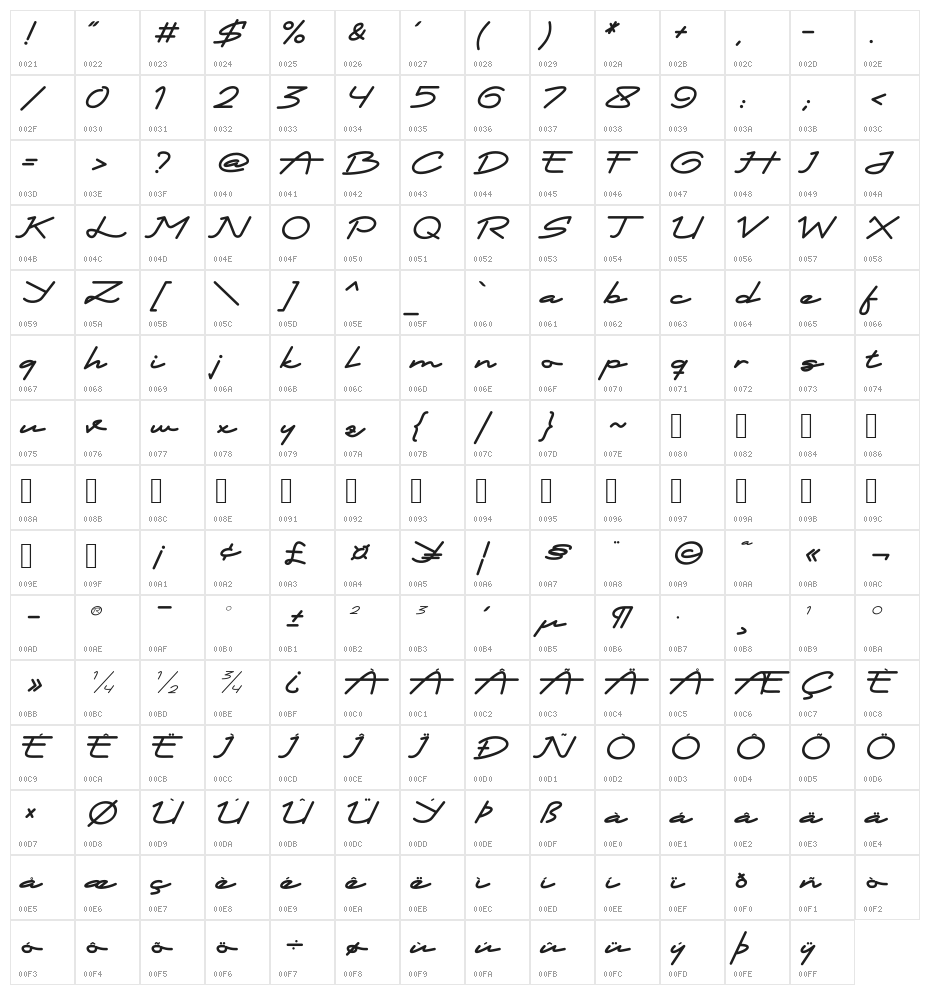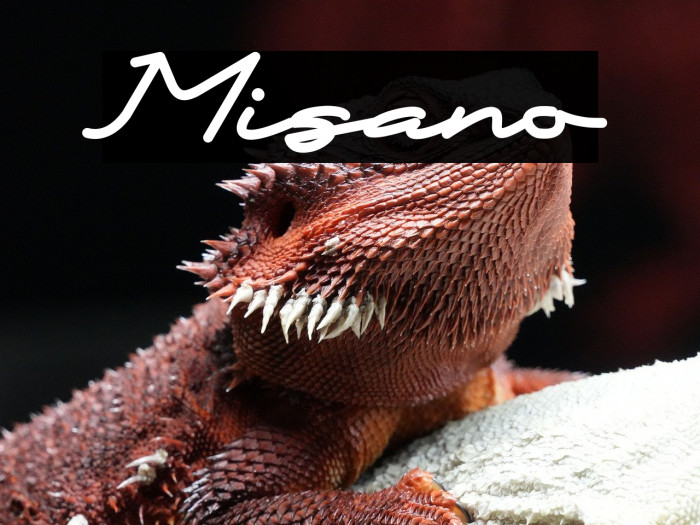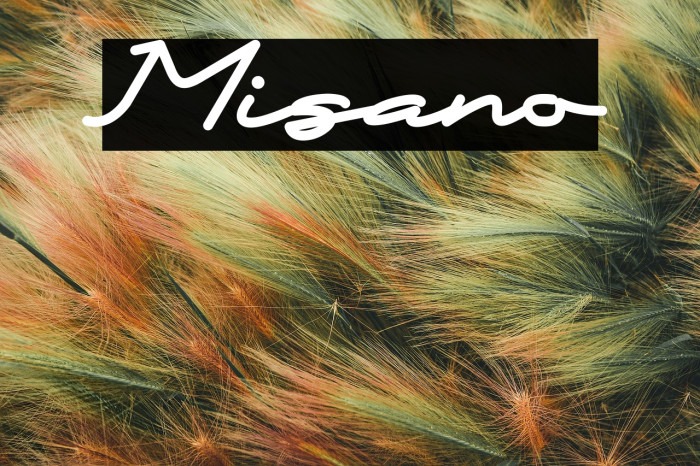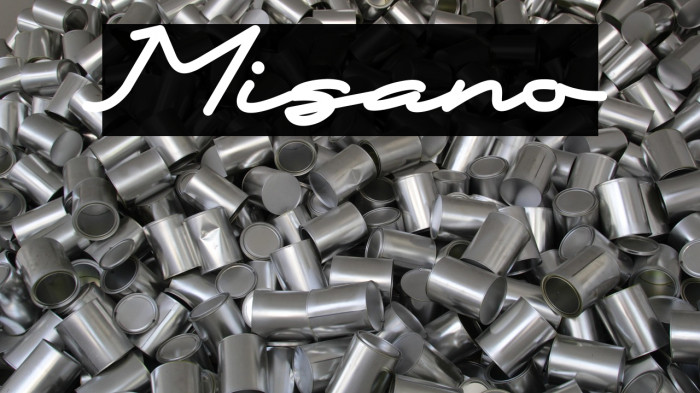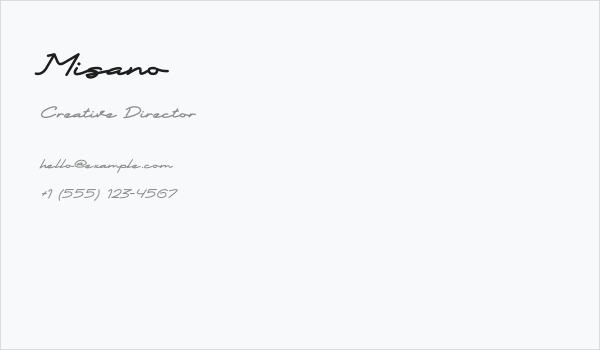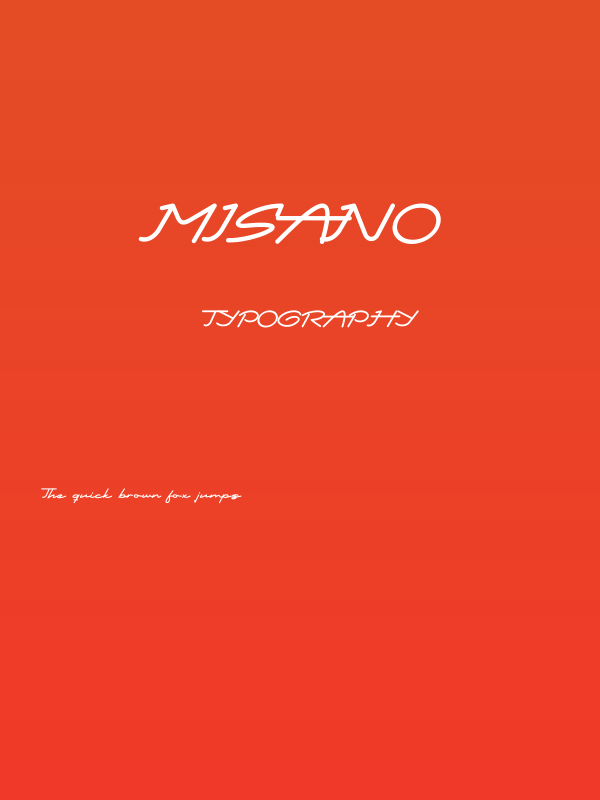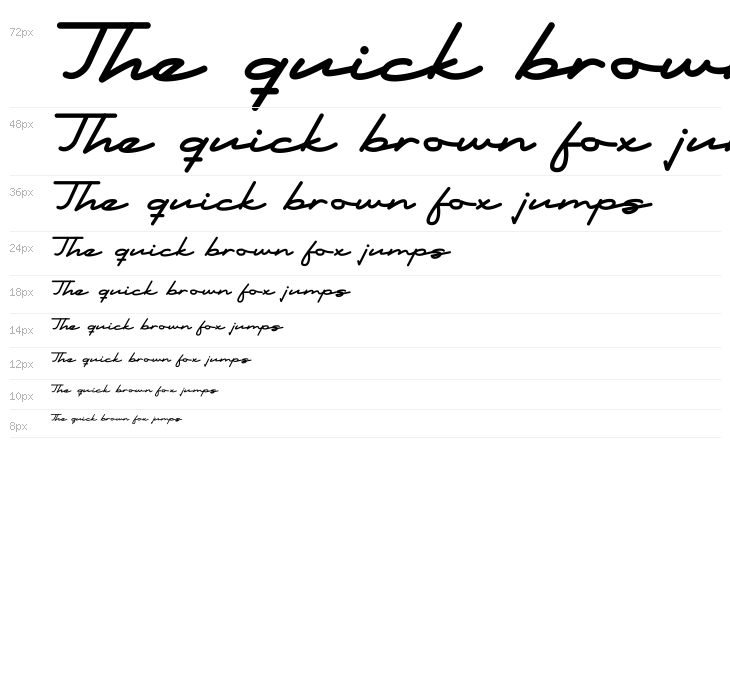
Misano Font
Misano Description
This font exudes a dynamic and fluid style, characterized by its cursive, handwritten appearance. The letters are connected in a smooth, flowing manner, giving it an elegant and personal touch. The uppercase letters maintain a consistent height, while the lowercase letters feature distinctive loops and curves, enhancing its script-like quality. The numerals are designed with a similar fluidity, ensuring a cohesive look across all characters. Special characters are seamlessly integrated, maintaining the overall aesthetic. This font is ideal for projects that require a personal, artistic touch, such as invitations, greeting cards, or branding materials.
| Overall Style | Elegant, Artistic |
| Proposed Projects | Ideal for invitations, greeting cards, personal branding, and artistic projects. |